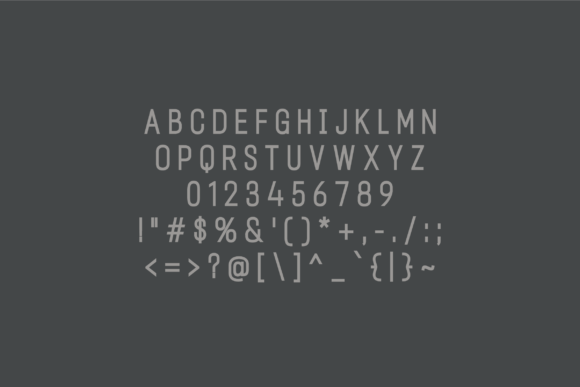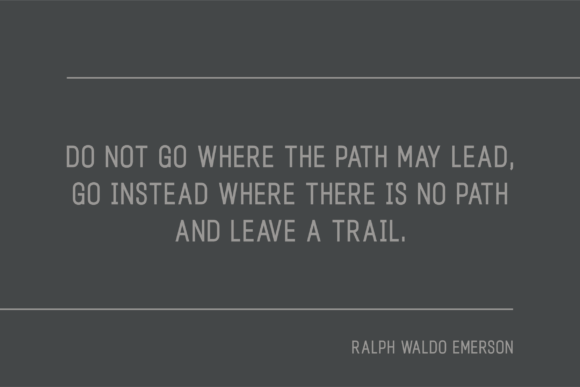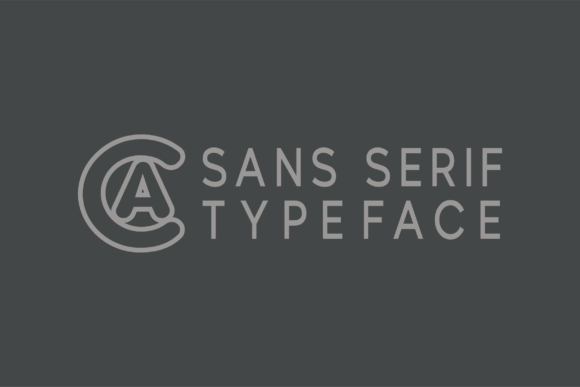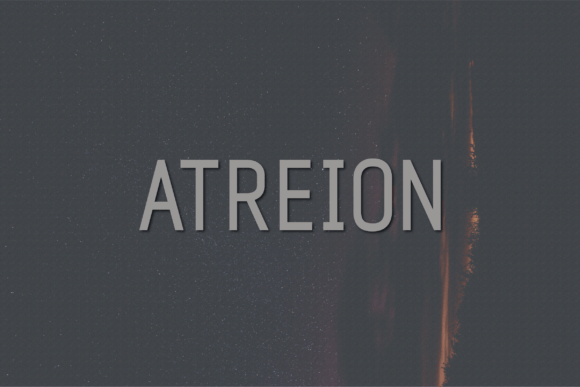
The Atreion Font: A Designer’s Dream Come True
I’ll never forget the day I stumbled upon the Atreion font while working on a wedding invitation project. My client had a very specific vision – elegant, modern, and sophisticated. I had been searching for the perfect font for hours, but nothing seemed to fit the bill. That was until I discovered Atreion. Its sleek lines and harmonious blend of characters immediately caught my eye, and I knew I had found the one.
- ✨ Sleek and sophisticated design: Atreion’s sans serif design is perfect for modern projects.
- ✅ Versatility: From logos to wedding invitations, Atreion adapts seamlessly to any design.
- 💡 Wide range of characters: Upper characters, numbers 0-9, punctuation, and symbols – Atreion has got you covered.
While Atreion is an amazing font, there are a few things to keep in mind:
- ⚠️ Limited italic options: Atreion’s italic styles are not as extensive as some other fonts.
- 🤔 Glyph accessibility: Some users may find it tricky to access certain glyphs or stylistic alternates.
The Story Behind Atreion
Atreion was designed with the modern designer in mind. Its creator wanted to craft a font that was both sleek and sophisticated, with a harmonious blend of characters. The result is a font that’s perfect for a wide range of design projects.
Q: What type of projects is Atreion best suited for?
Atreion is versatile and can be used for a wide range of projects, from logos and wedding invitations to advertisements and magazine content.
Q: Is Atreion suitable for body text?
While Atreion is elegant and sophisticated, it’s best suited for headlines and titles. For body text, consider a font with more readability.